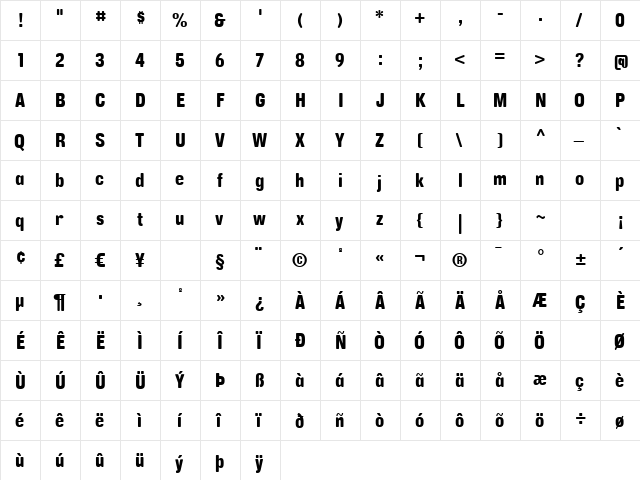
Ketchupa Regular
Design Context for Ketchupa Typeface
Ketchupa takes a measured approach to typography — its balanced proportions and neutral character make it a reliable workhorse for both digital and print work.